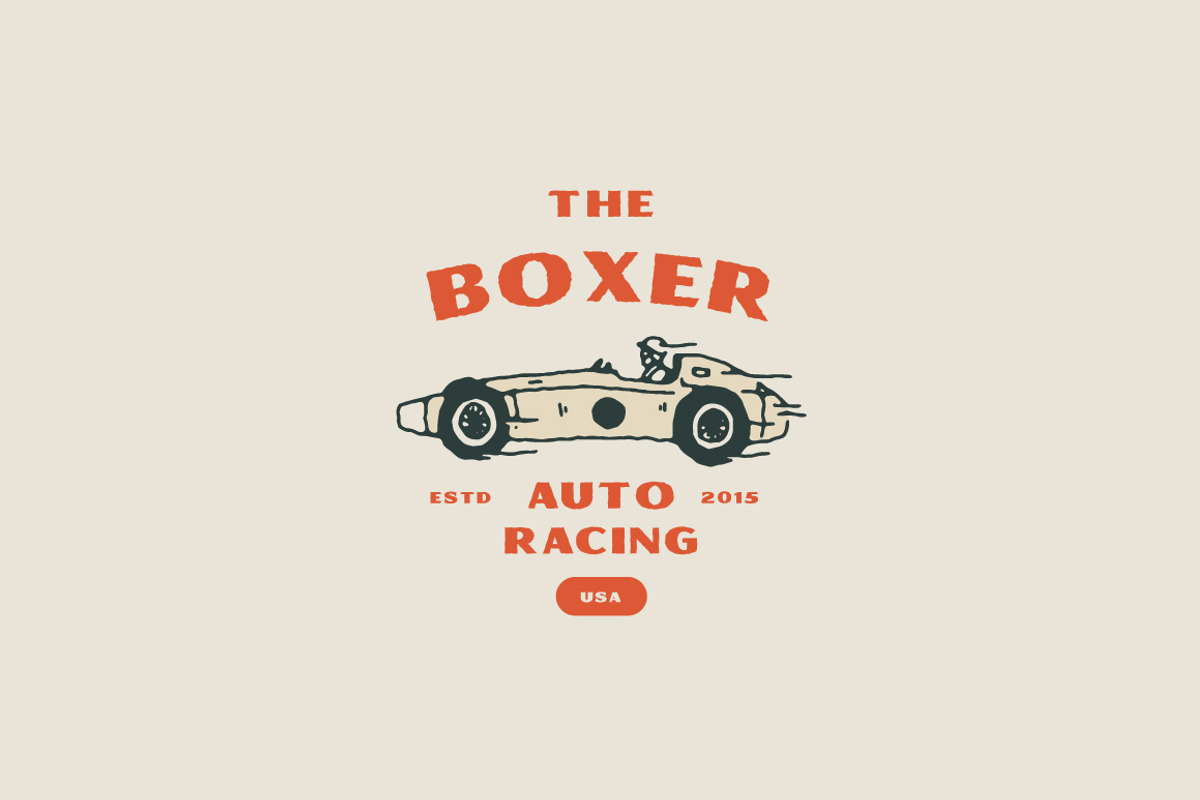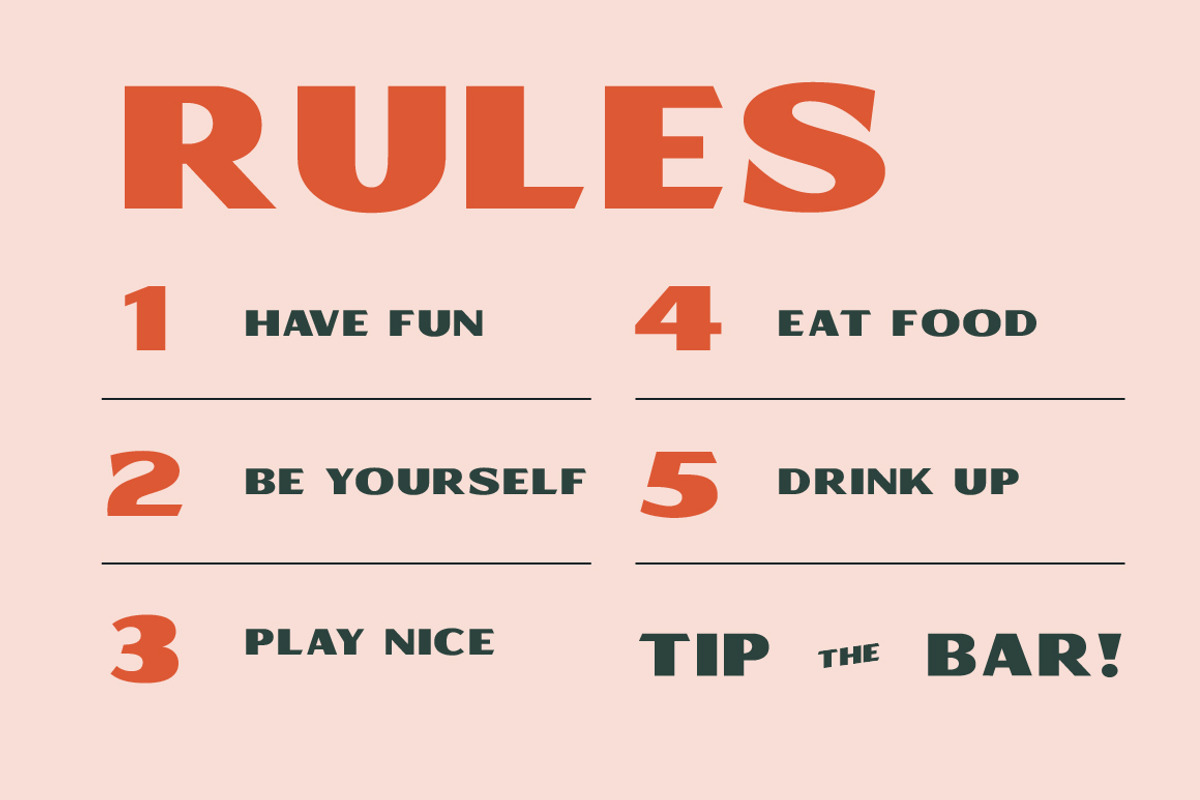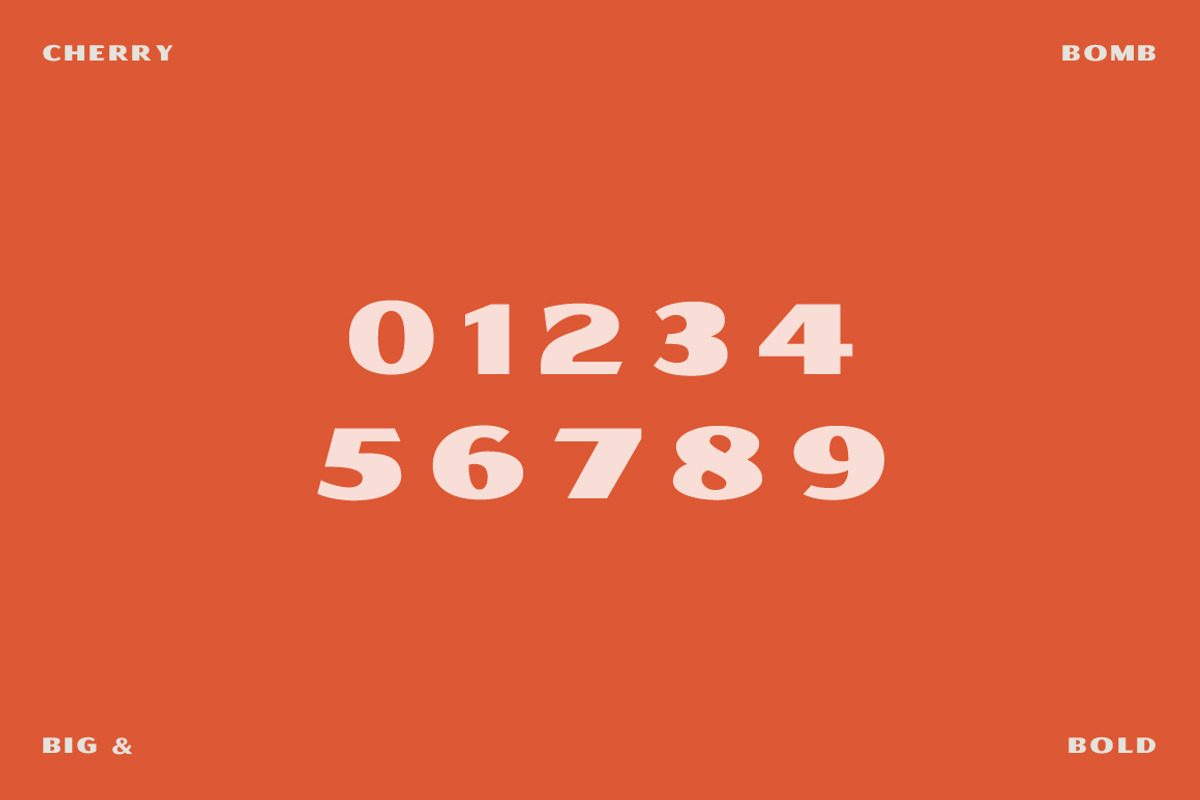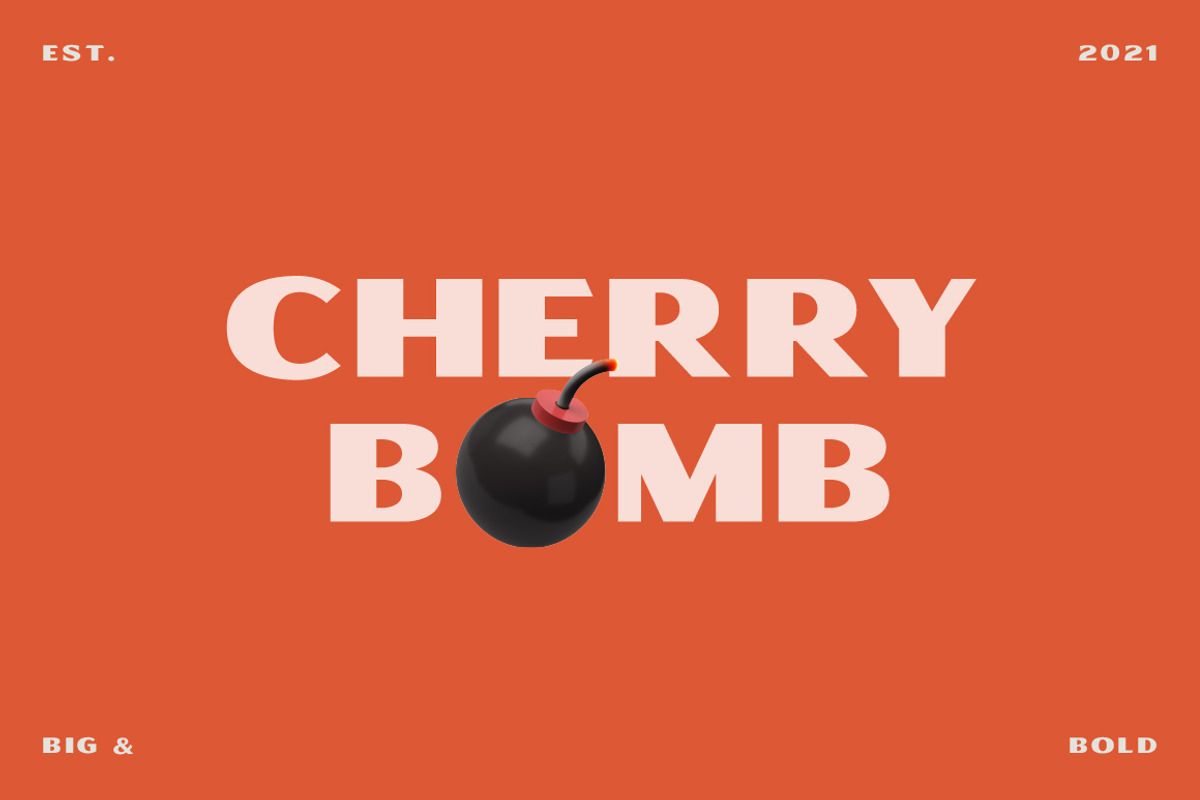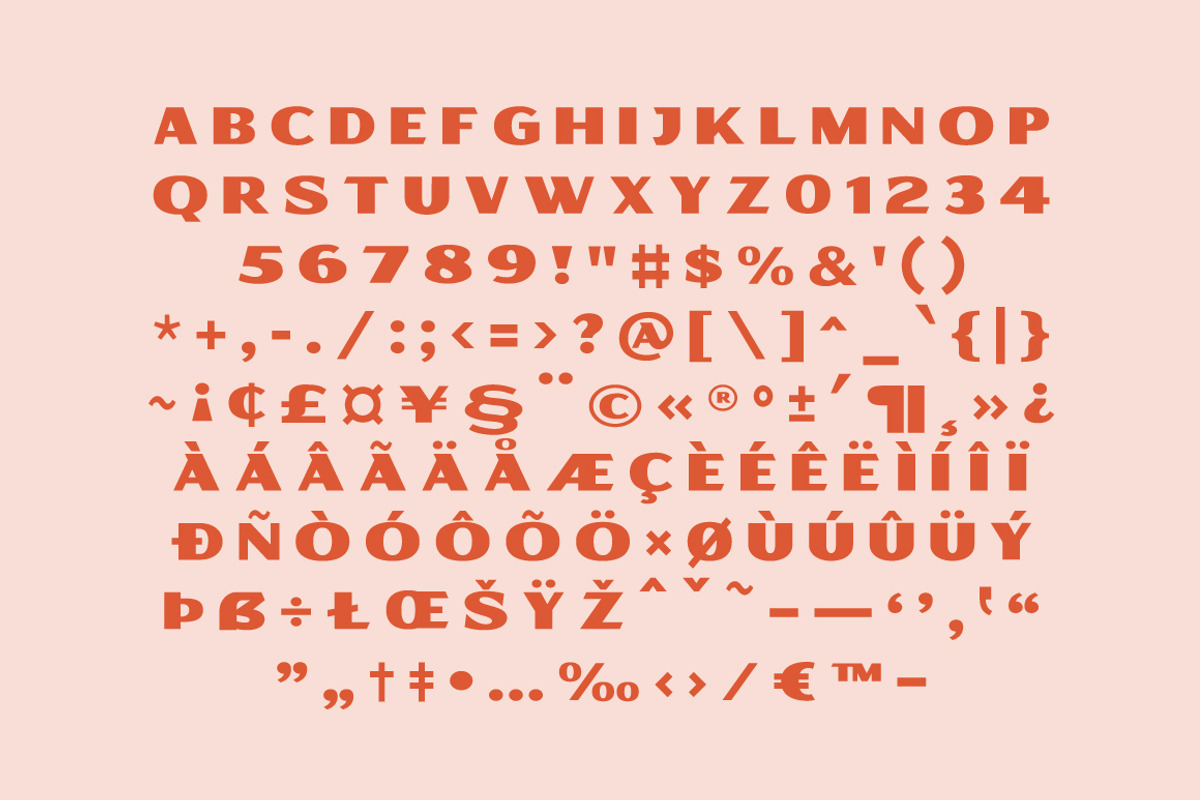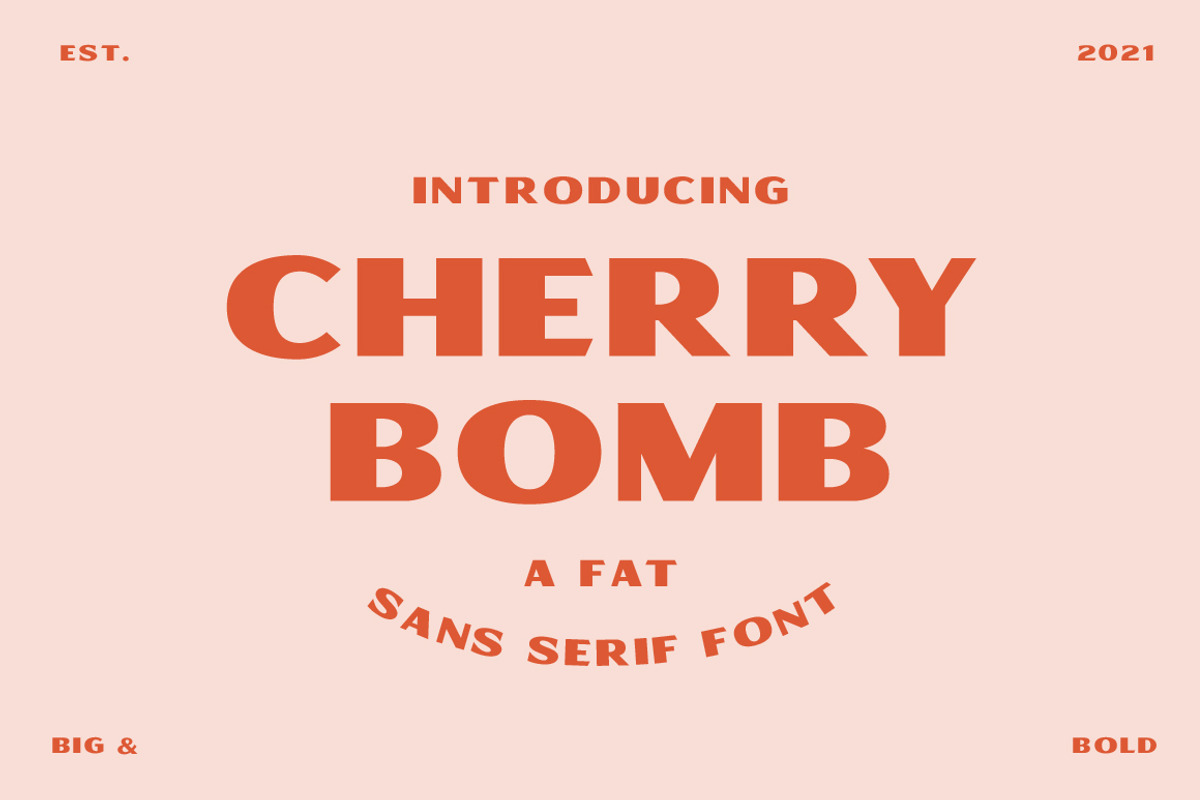
Cherry Bomb - Wide Sans Serif
Cherry Bomb is a bold & beautiful wide sans serif font. This larger than life font is super fun to work with and is perfect for logos, packaging, and posters, but really works well for all purposes. So, snag Cherry Bomb and get creative!
*THIS ENTIRE FONT IS CAPITALIZED